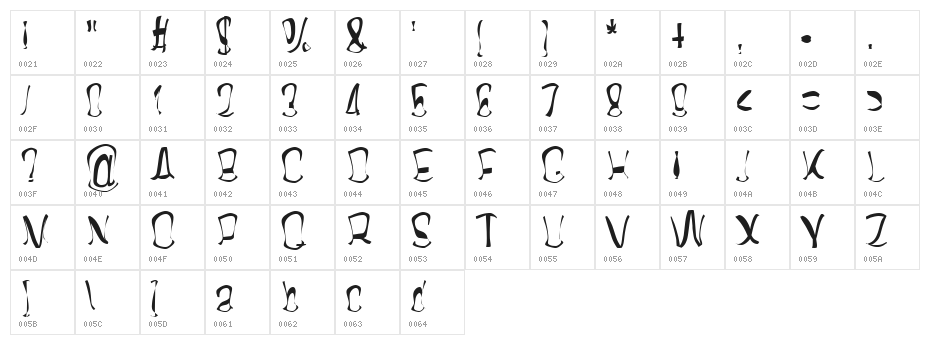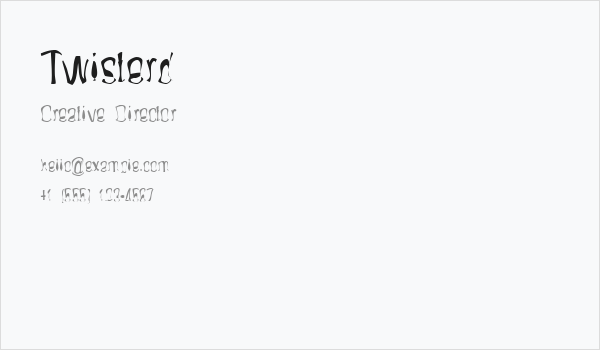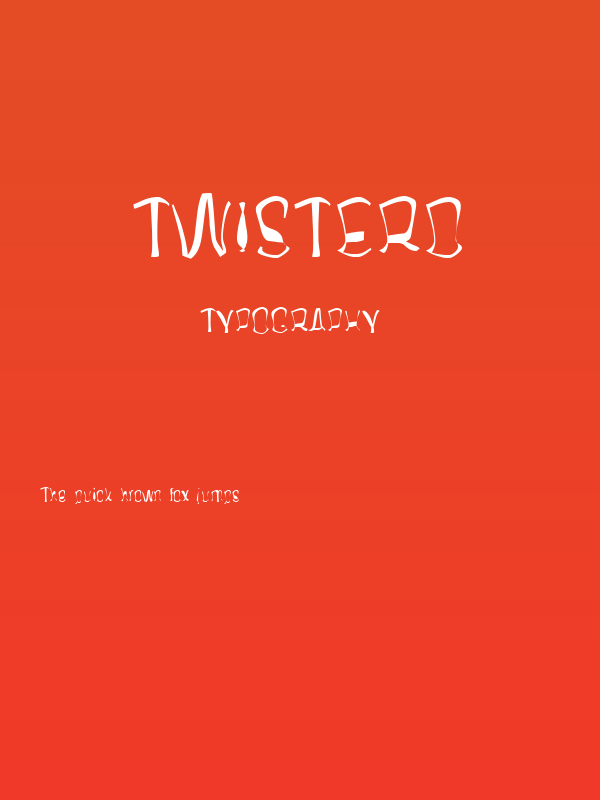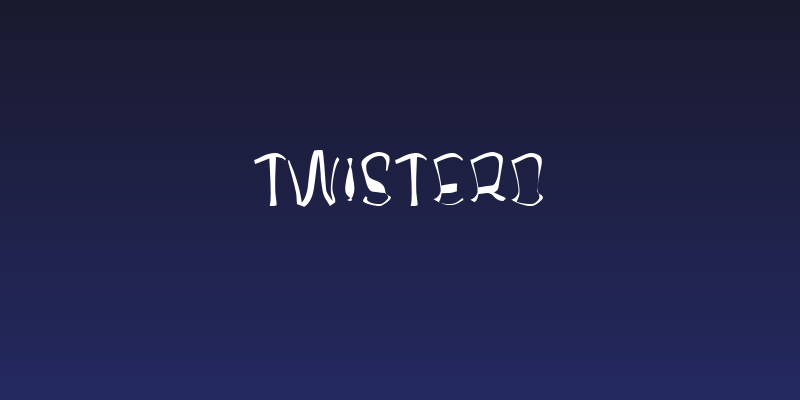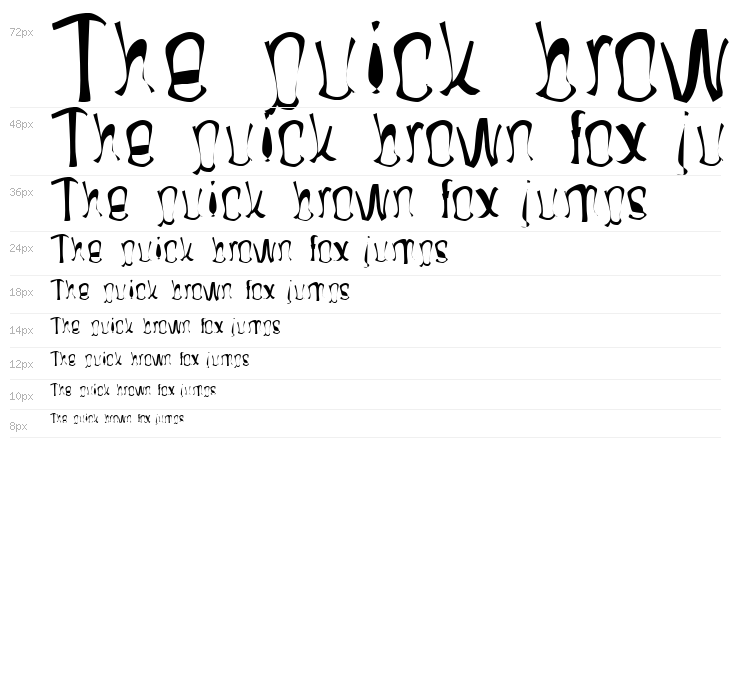
Twisterd Font
Twisterd Description
This font features a playful and dynamic design with a twisted, distorted appearance. The characters exhibit a unique blend of thick and thin strokes, creating a sense of movement and energy. The uppercase and lowercase letters maintain a consistent style, with exaggerated curves and angles that give the font a whimsical and artistic flair. Numbers and special characters follow the same twisted theme, ensuring a cohesive look across all text elements. This font is ideal for projects that require a bold and unconventional aesthetic.
| Proposed Projects | Ideal for creative projects such as posters, album covers, and branding that seek a bold and artistic touch. |